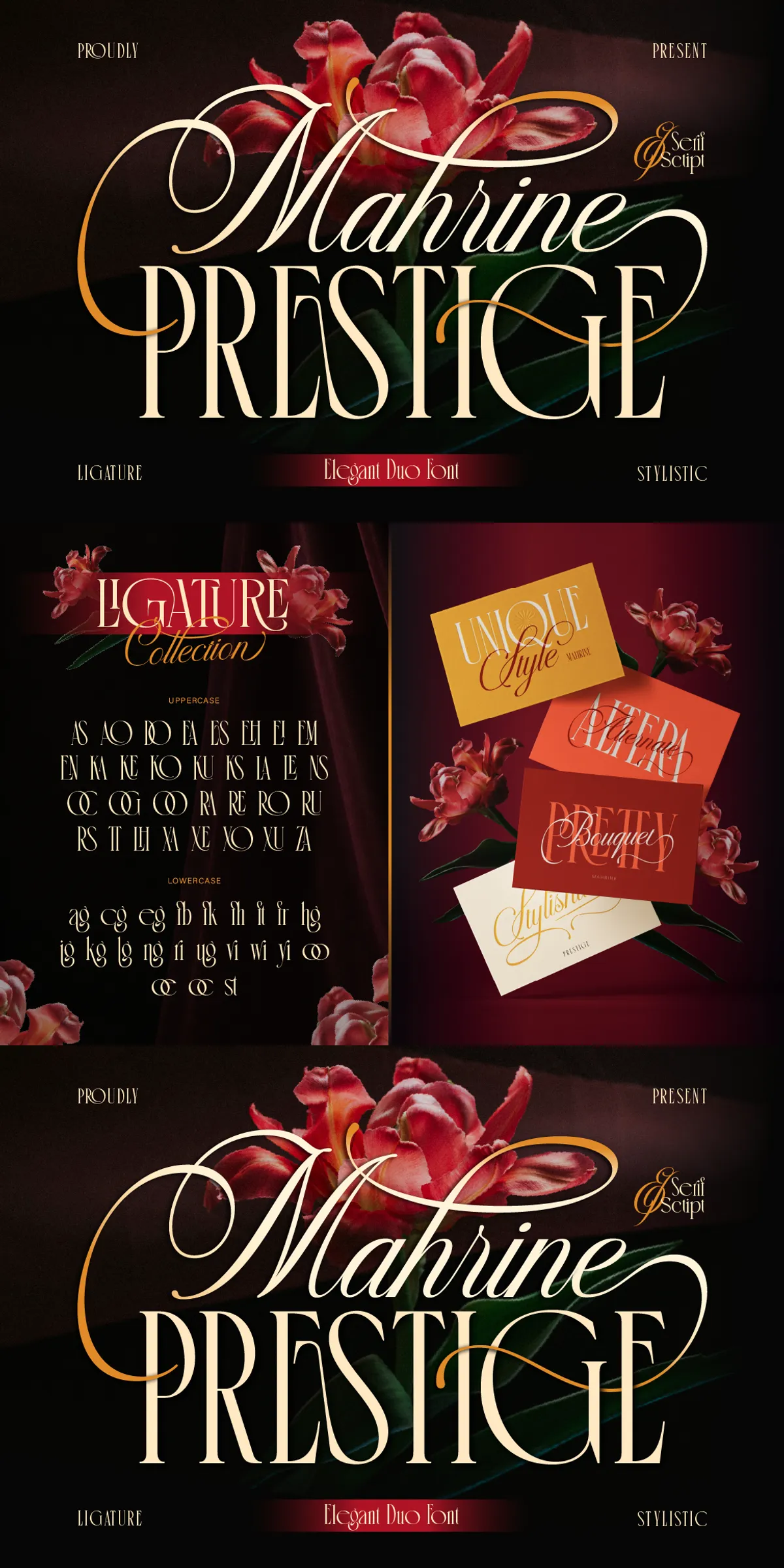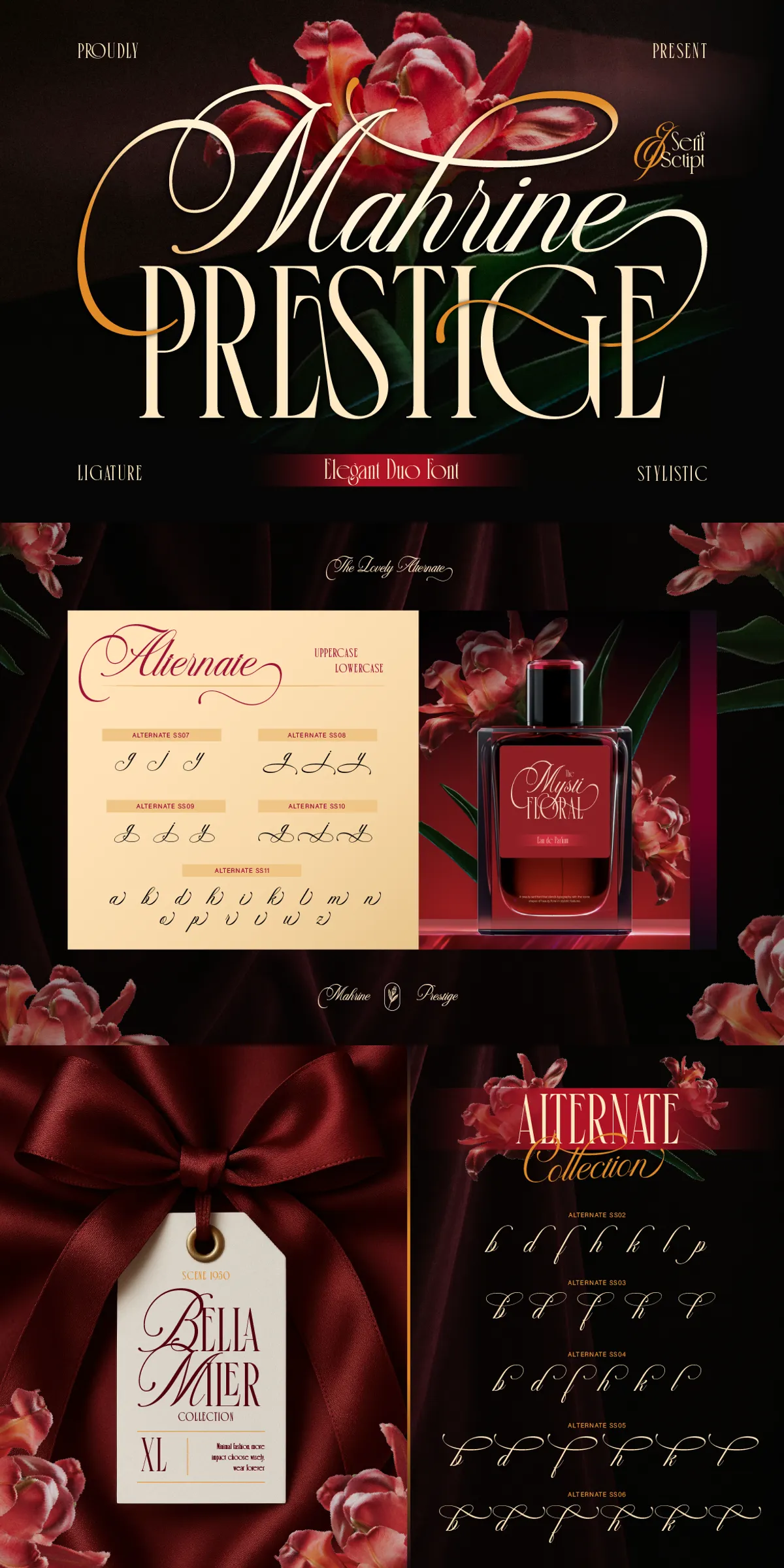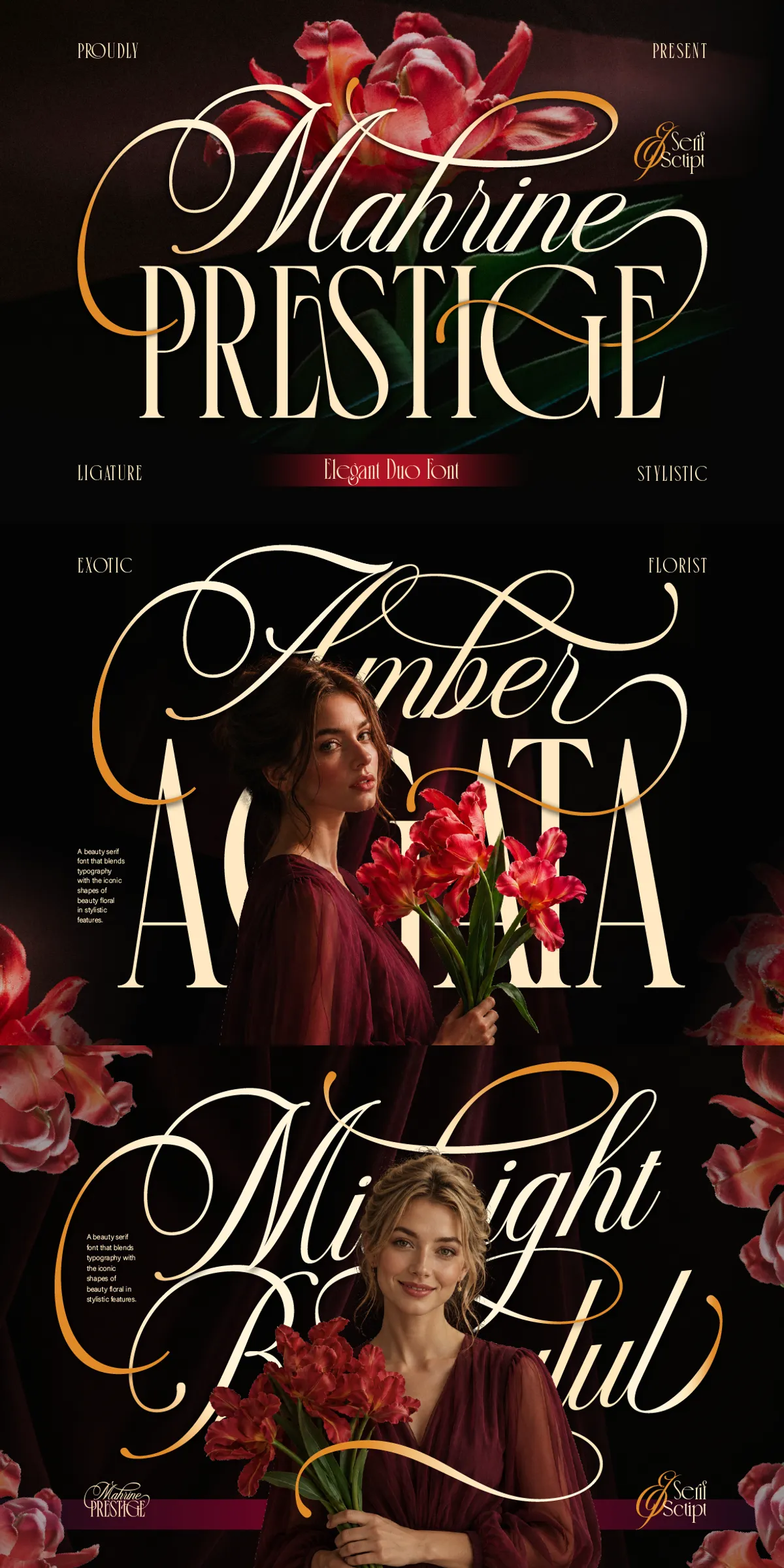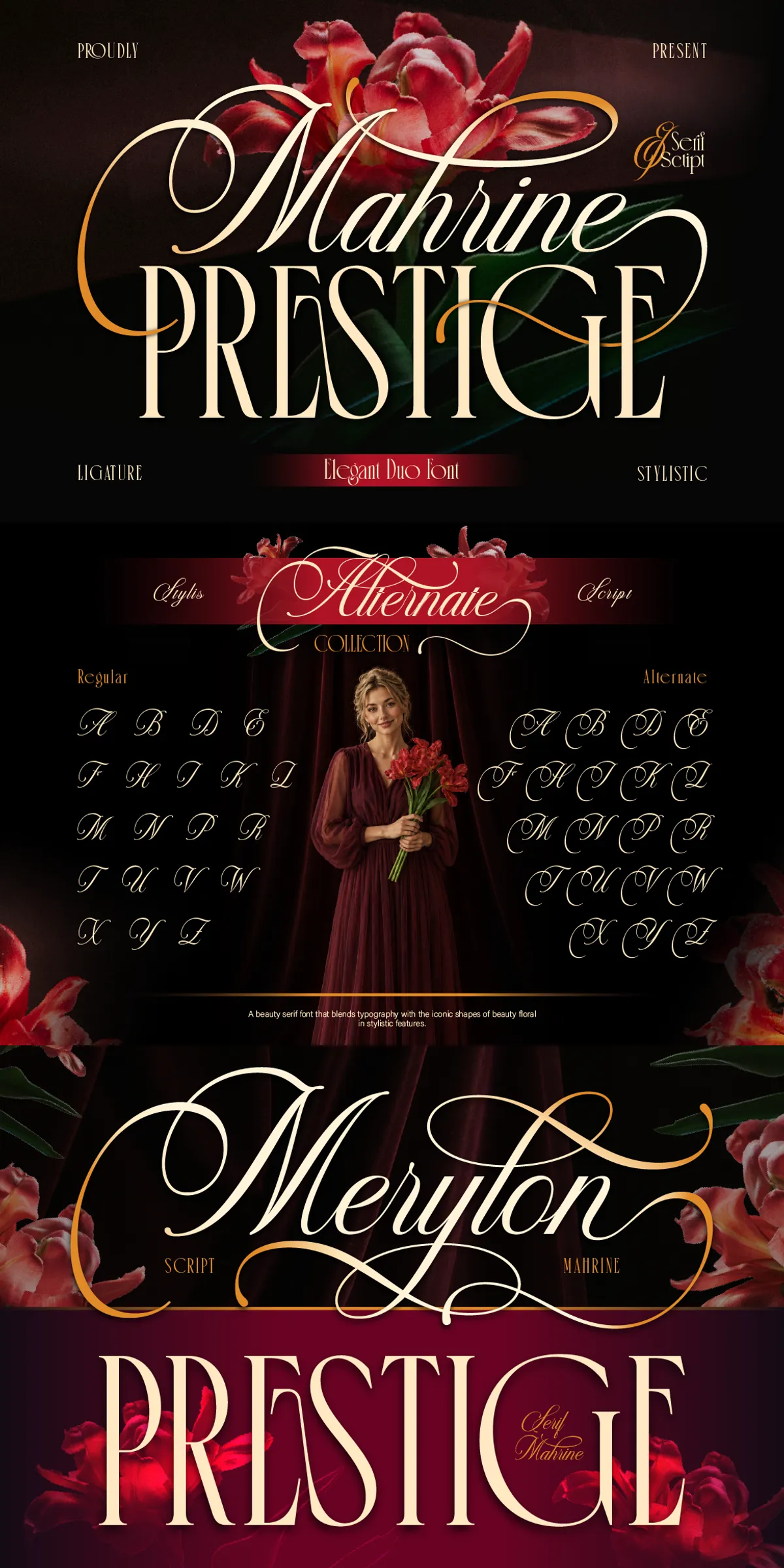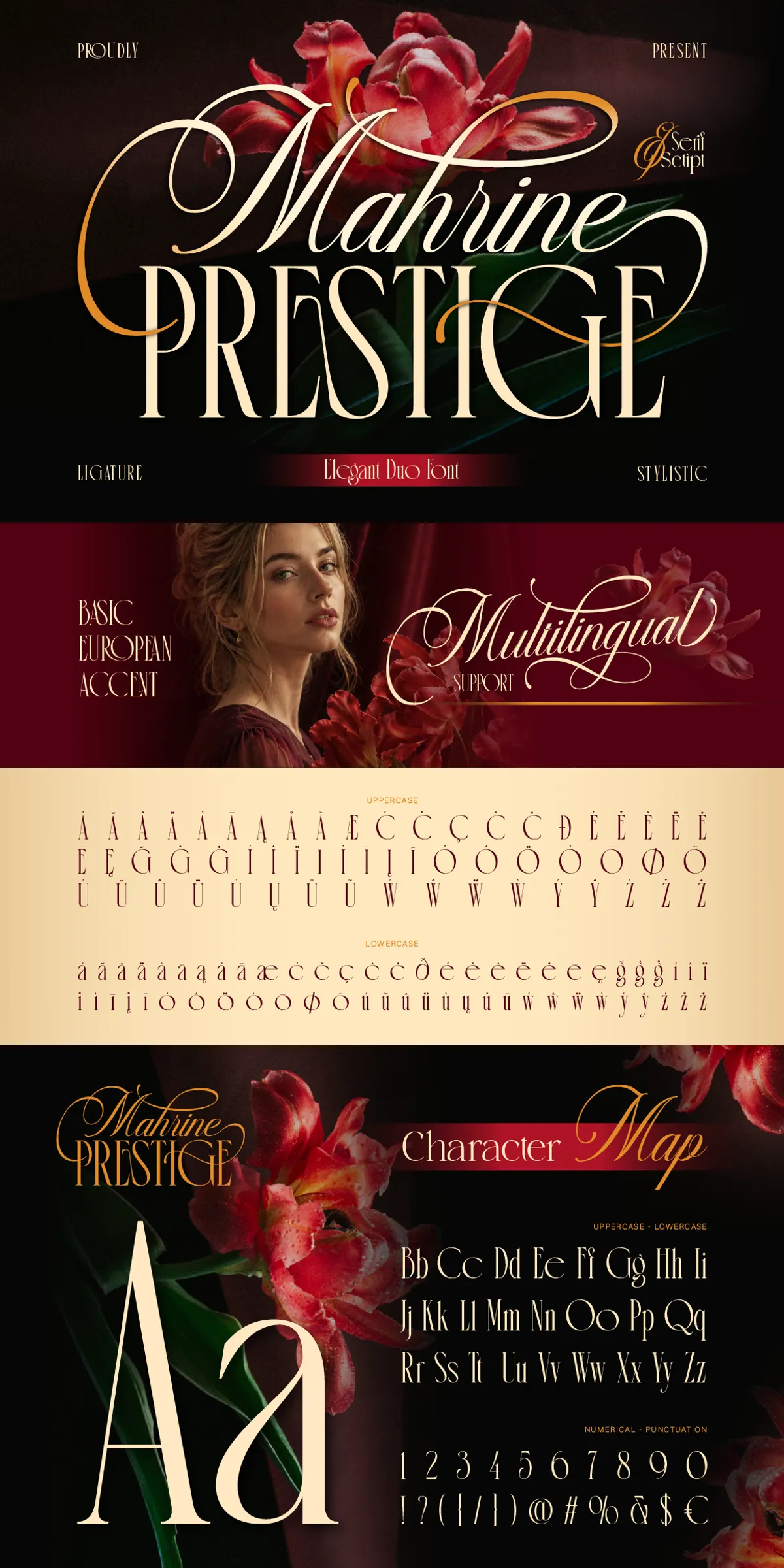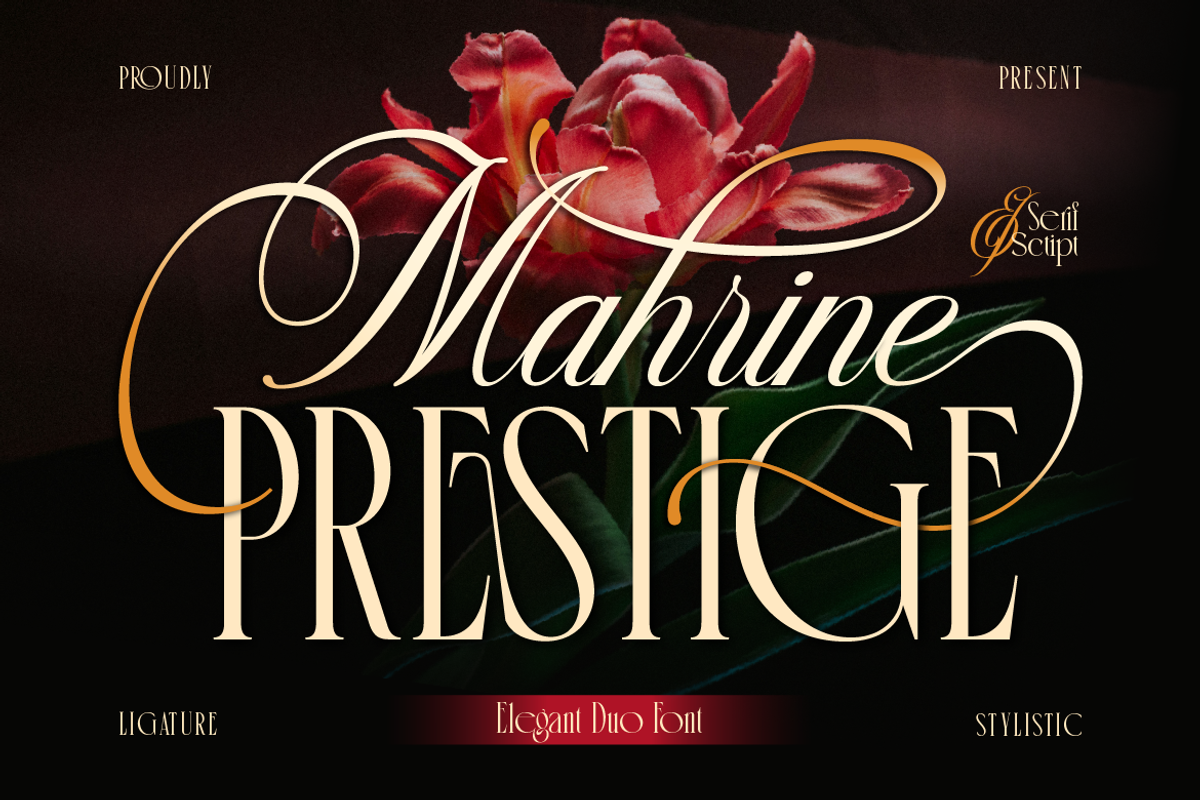
Mahrine Prestige delivers a refined typographic voice by combining a high-contrast serif with an expressive, flowing script. The serif brings clean structure, measured proportions, and sharp contrast that command attention in headlines and editorial systems. The script contributes graceful curves, generous swashes, and a hand-crafted warmth that personalizes messaging without overwhelming the overall design. Together they form a harmonious pairing that elevates branding, packaging, editorial, and celebratory print work with unmistakable luxury and clarity.
Design Personality And Visual Character Of Mahrine Prestige
Serif That Commands Refined Attention
The Mahrine Prestige serif offers crisp terminals, elegant stroke contrast, and open counters that render beautifully at display sizes. Use it for mastheads, product names, or any situation where a composed, authoritative voice is required. Its structural clarity ensures excellent legibility in large-scale presentations while retaining decorative detail that signals premium quality.
Script That Adds Warmth And Expressive Motion
The script companion introduces fluid letterforms and lively connections that feel intentionally human. Its swashes and alternate forms provide dramatic accents for logotypes, invitations, and editorial pull-quotes. Because the script remains balanced and controlled, it enhances hierarchy without competing with the serif’s presence.
Practical Uses And Recommended Applications
Brand Identity And Logos
Pair the serif for brand names and logotypes with the script for secondary marks, taglines, or signature elements. This contrast creates a polished, layered identity system that reads as both established and personal.
Editorial And Magazine Layouts
Use the serif for cover headlines and section titles, allowing its contrast and shape to provide editorial gravitas. Deploy the script sparingly for feature pull-quotes or author signatures to introduce human warmth and visual variety.
Wedding Suites And Event Collateral
Mahrine Prestige excels on invitations, programs, and place cards. The script lends romantic flourish to names and headings while the serif holds body text and practical details with clear elegance.
Luxury Packaging And Marketing Materials
Elevate product labels, perfume boxes, and premium packaging by using the serif for the product name and the script for crafted-touch details. The combined system communicates handcrafted luxury and shelf presence.
Included Glyph Sets And OpenType Features
- Full A–Z set (uppercase & lowercase)
- Numerals and punctuation
- Alternates and stylistic sets for decorative and restrained options
- Contextual ligatures to improve handwriting flow in the script
- OpenType-enabled features to access swashes and alternates
Multilingual Support And Future Updates
Mahrine Prestige supports a broad range of Latin-based languages, enabling consistent brand application across markets. The foundry provides future updates to expand glyph coverage and to refine hinting and OpenType behavior as needed.
Best Practices For Pairing And Hierarchy
- Use the serif at display sizes for primary headlines to showcase contrast and structure.
- Reserve script usage for names, signatures, submarks, and small headline accents to maintain legibility.
- Pair with a neutral sans-serif for extended body copy to keep long reads comfortable while the duo leads visual identity.
- Test kerning and pairings in your production environment, especially at small sizes and on textured substrates.